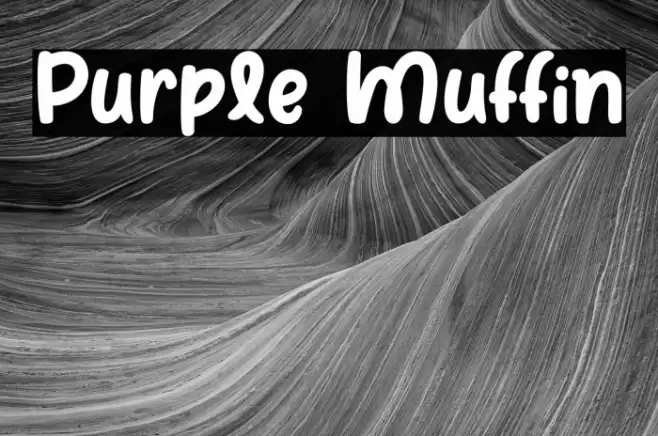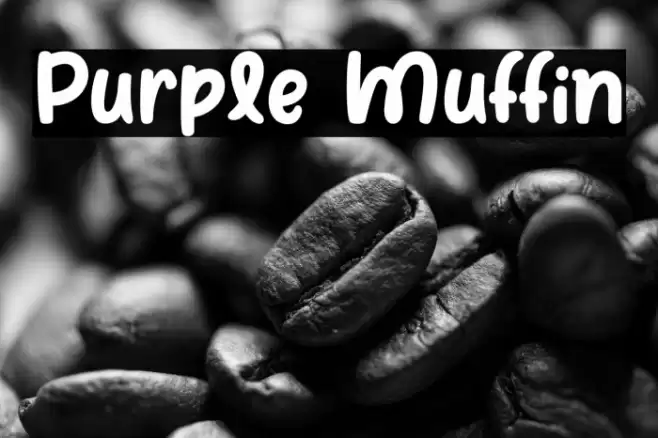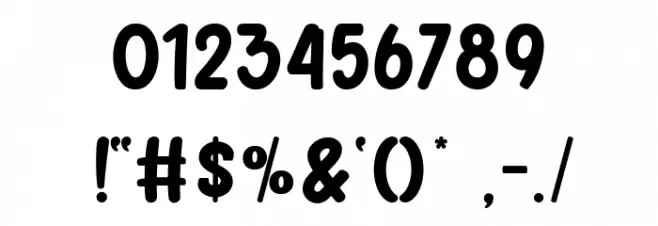
Purple Muffin Font
Purple Muffin Description
This playful and whimsical font features rounded, bold characters with a hand-drawn appearance. The letters are slightly irregular, adding a casual and friendly vibe. The uppercase and lowercase letters maintain a consistent style, with smooth curves and a uniform thickness throughout. The numbers and special characters match the overall aesthetic, making it versatile for various uses. Its unique style is perfect for projects that require a fun and approachable look.
A playful, hand-drawn font with rounded, bold characters from Cartoon fonts.
- Proposed Projects: Ideal for children's books, playful branding, greeting cards, and social media graphics.
- Overall Style: Playful